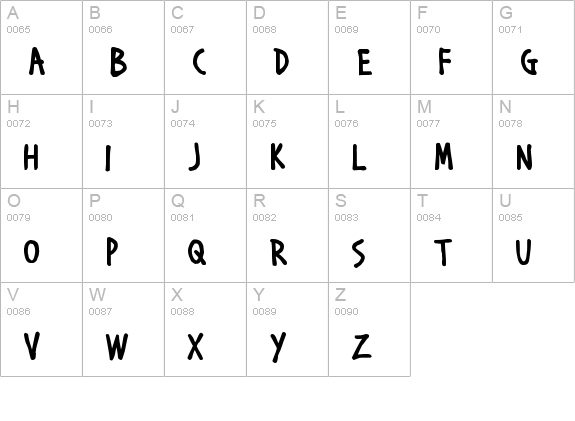
Handage AOE Bold Font Details
Handage AOE Bold is a strong, high-contrast variant in the Handage typeface family \xE2\x80\x94 well suited to headlines, attention-grabbing titles, and strong calls-to-action.
Handage AOE Bold font is a bold and vibrant typeface that exudes a sense of energy and creativity. Its bold letterforms are crafted with precision, creating a strong visual impact that captivates the viewer's attention. This font is perfect for projects that require a bold and eye-catching design, such as headlines, logos, posters, and more. The Handage AOE Bold font is characterized by its unique and playful appearance. Each letter is carefully crafted with a hand-drawn feel, giving it a personal touch and adding a sense of authenticity to your designs. The bold strokes and exaggerated curves add a dynamic and lively element, making it the perfect choice for designs that need to stand out. One of the best things about Handage AOE Bold font is that it is freely available to download at FontsMarket.com. This means that you can easily access this font without any restrictions or limitations. Whether you are a professional designer or a hobbyist, you can enjoy the benefits of this font without having to worry about any costs. With Handage AOE Bold font, you have the freedom to express your creativity and make a statement. Its bold and energetic design will instantly grab attention and leave a lasting impression. Whether you are designing a logo for a brand, creating a poster for an event, or adding a unique touch to your personal projects, Handage AOE Bold font is the perfect choice. So why wait? Download Handage AOE Bold font for free at FontsMarket.com and unleash your creativity. Elevate your designs with this bold and vibrant typeface, and make a bold statement that will leave a lasting impression.